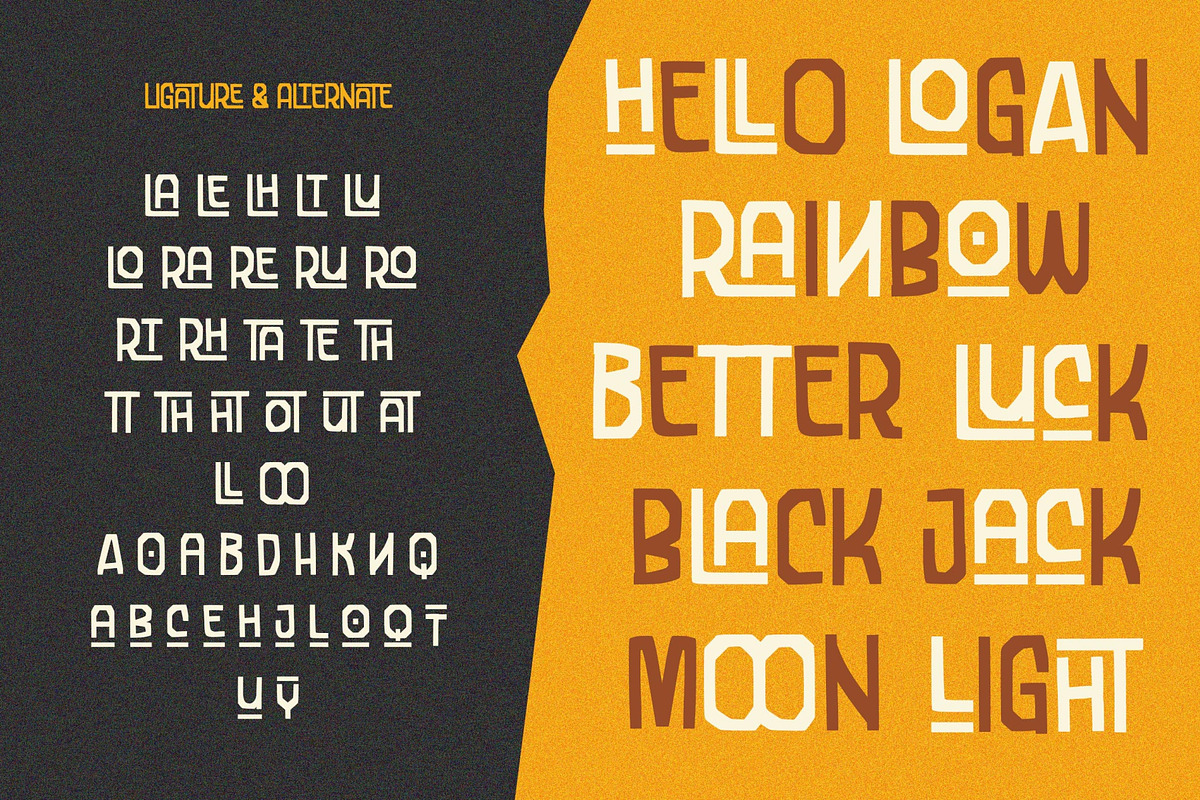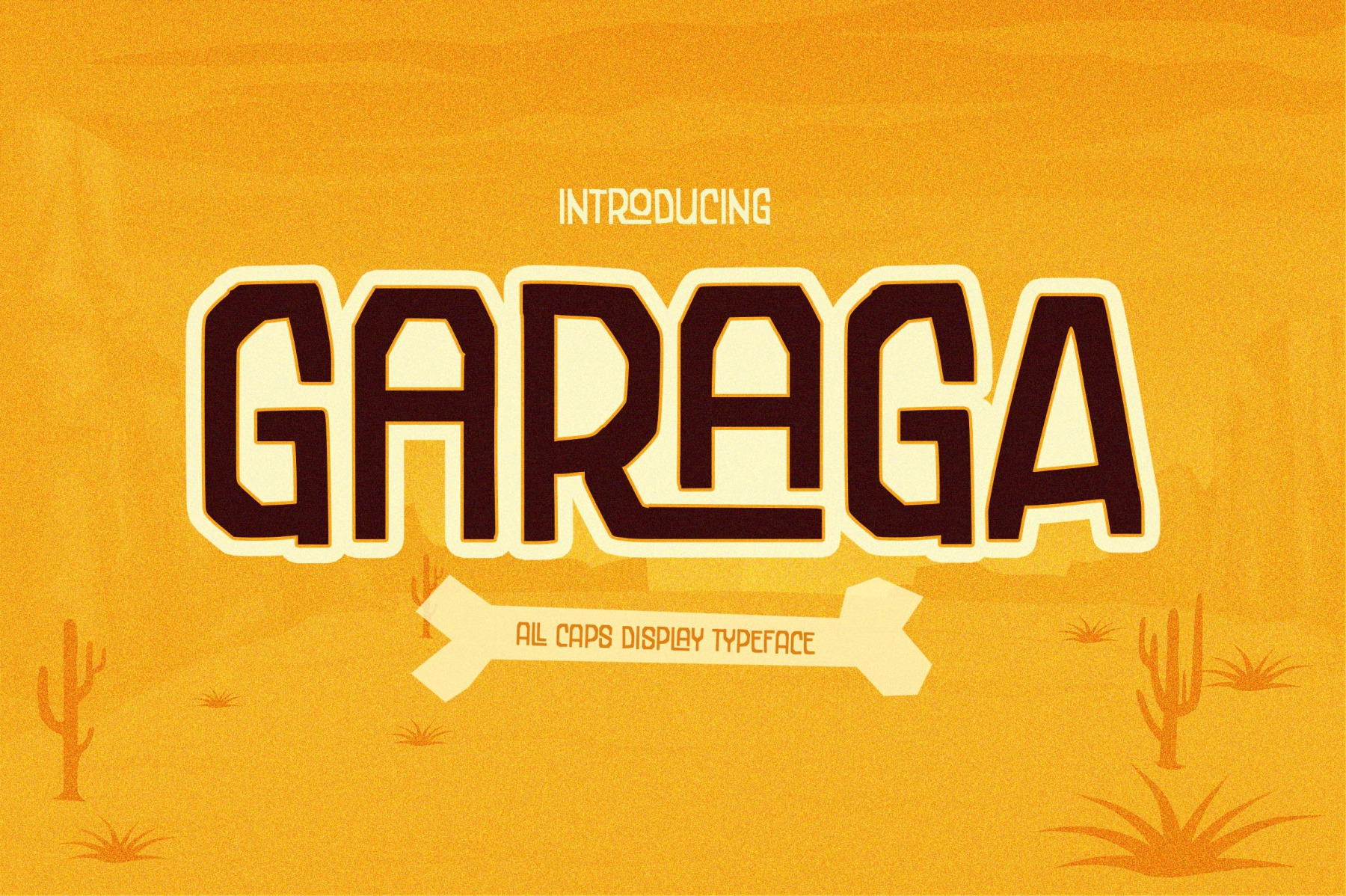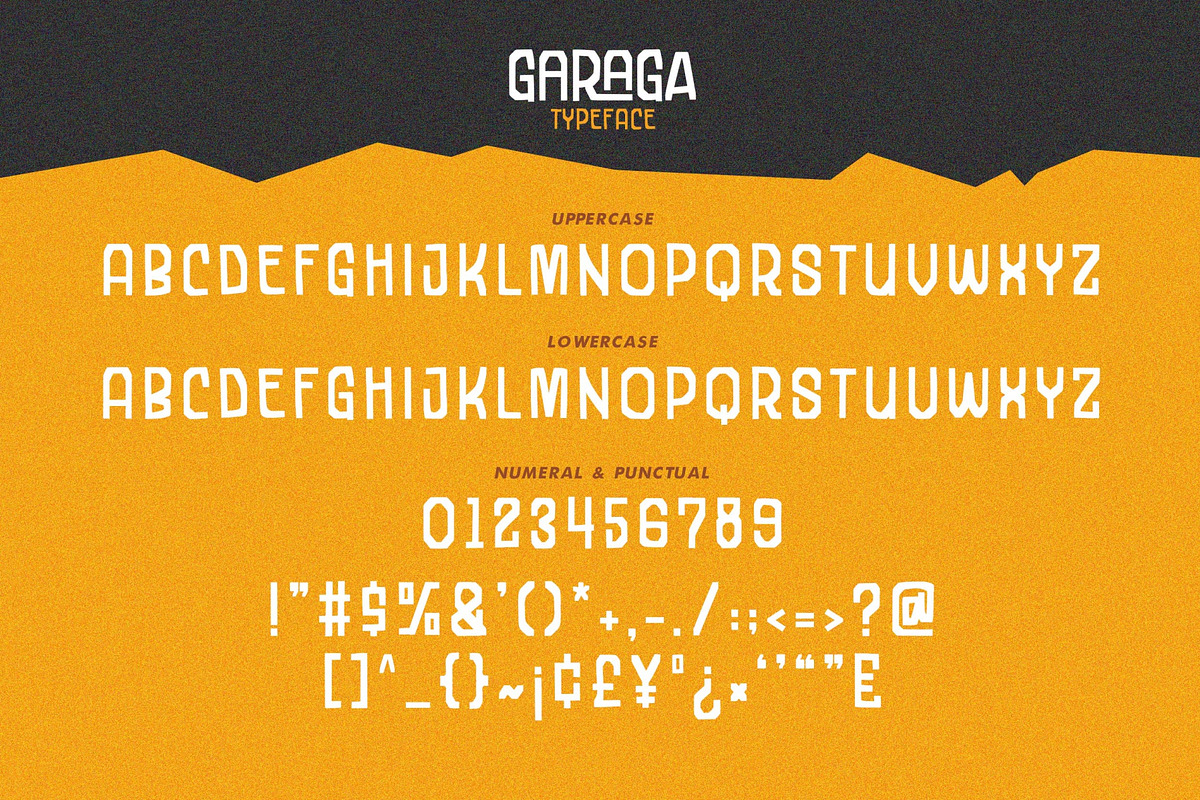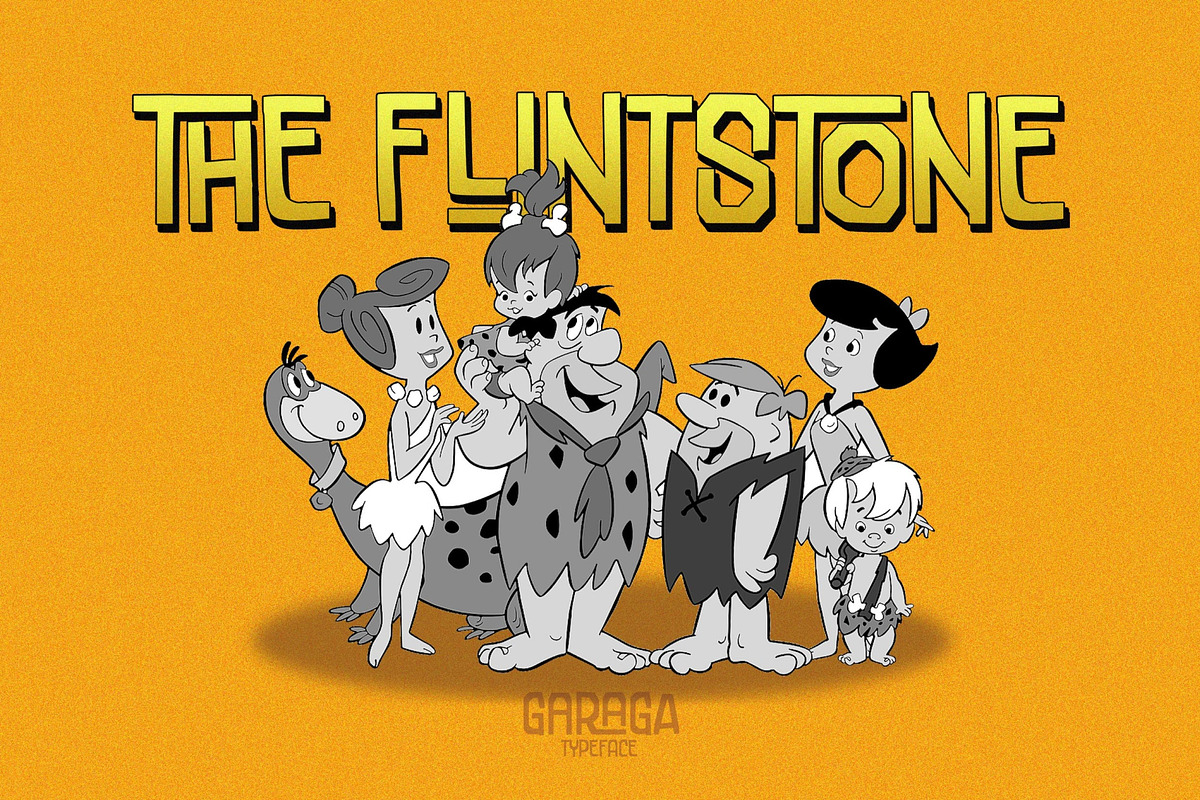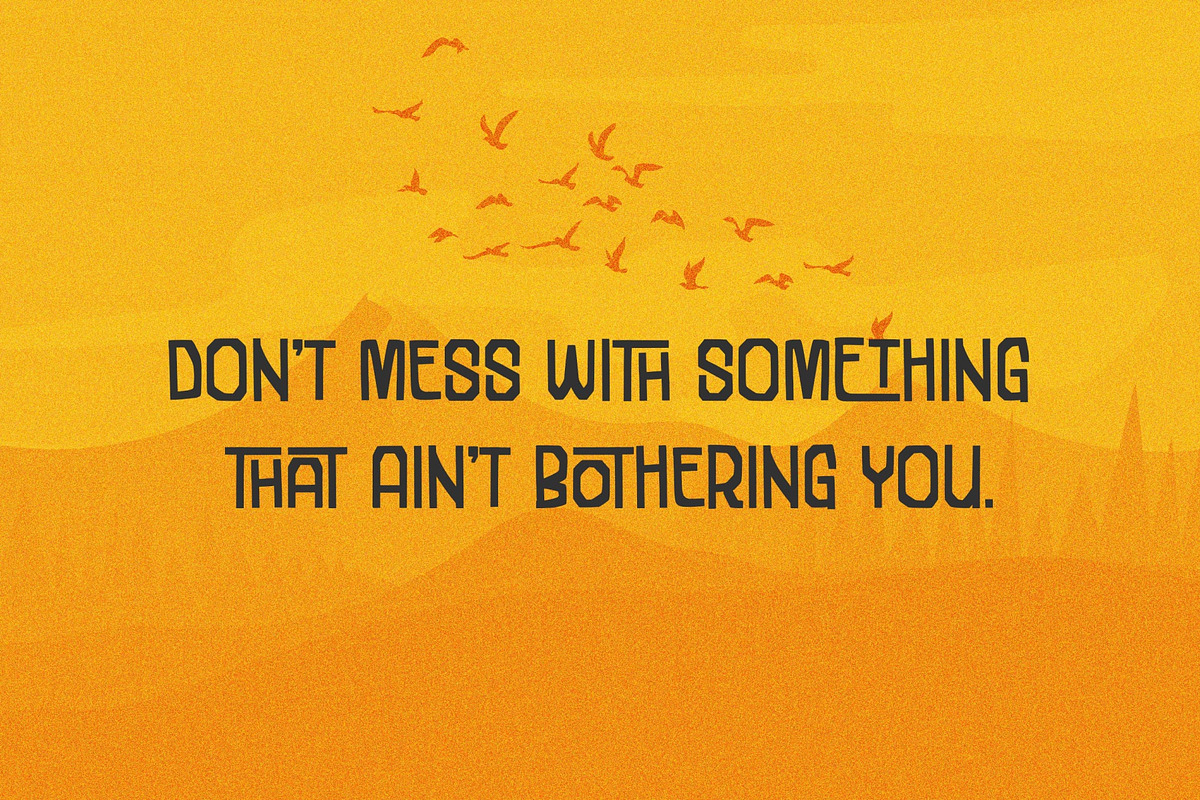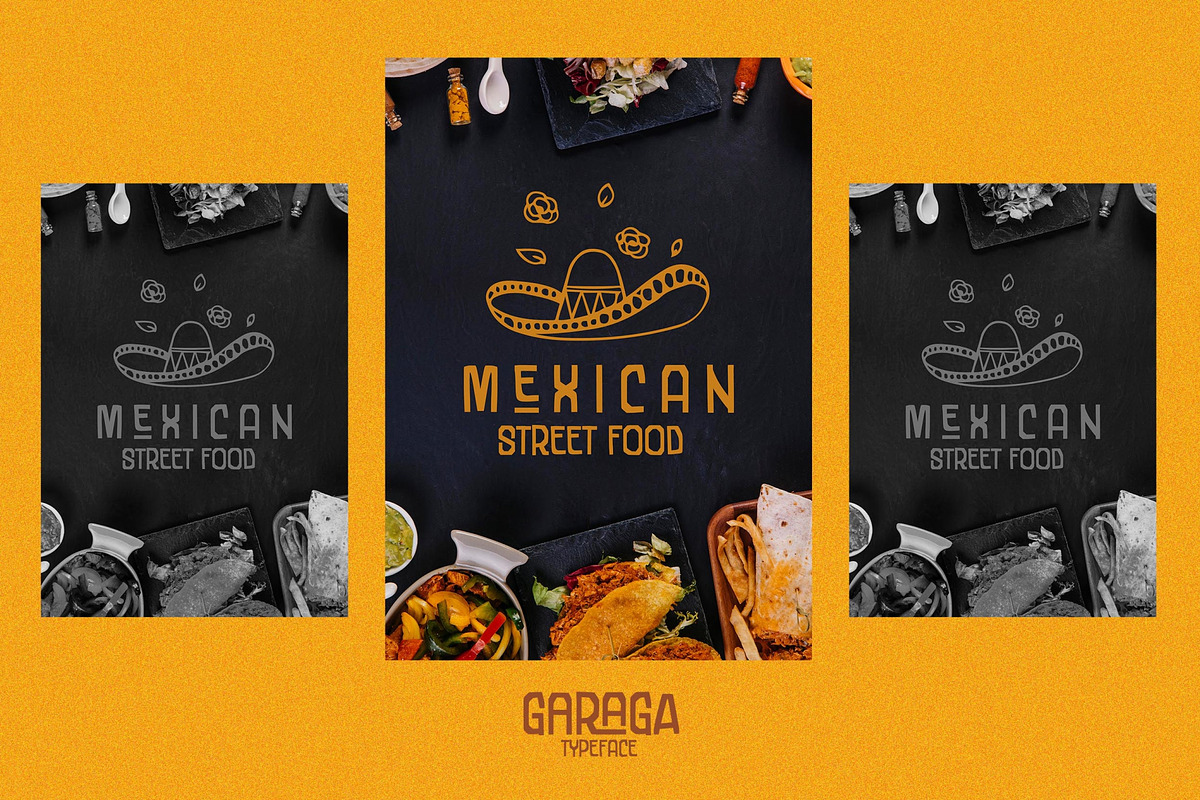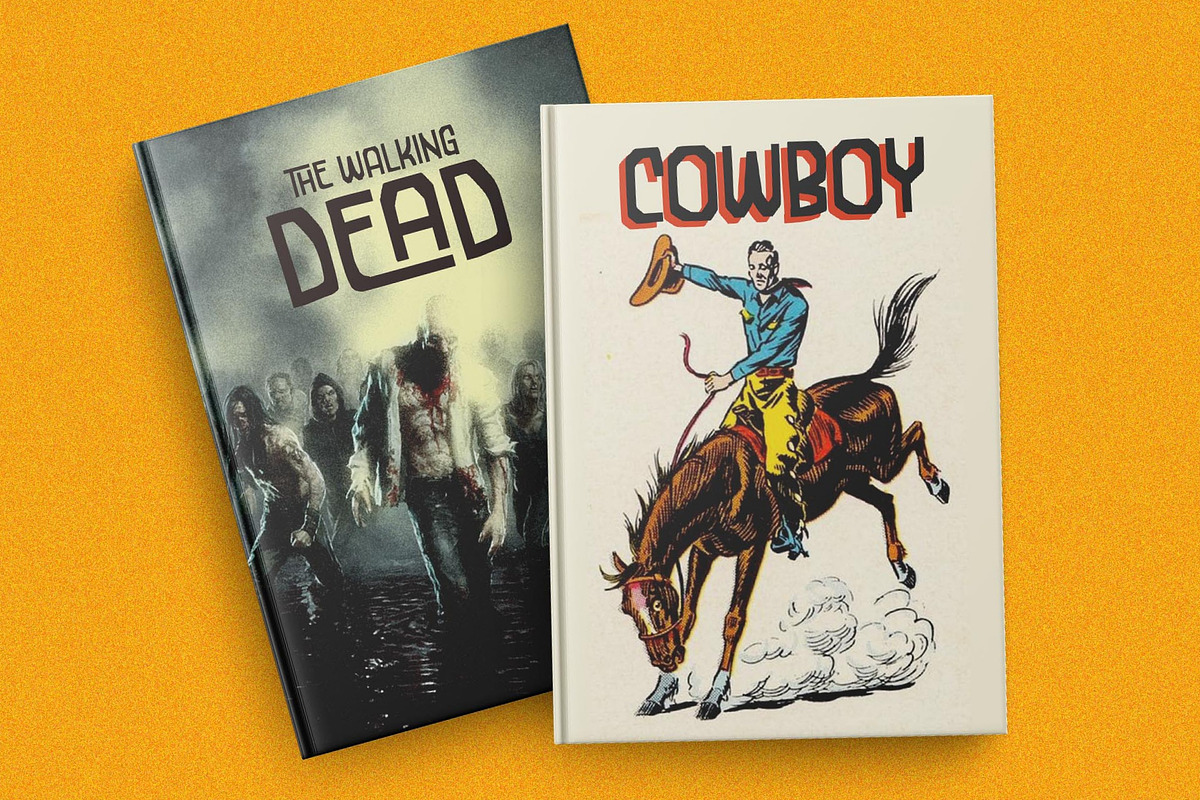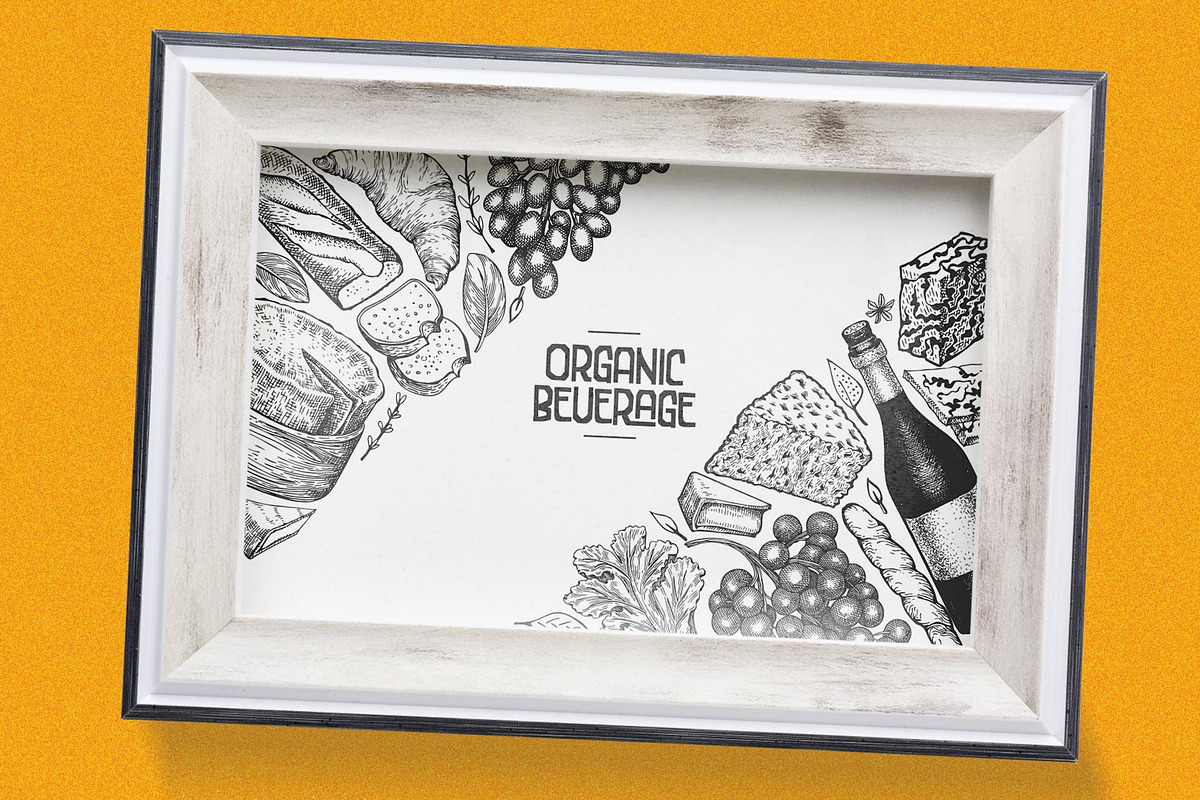
Garaga | Display Typeface
Introducing Garaga | Display Typeface
Garaga combines attractive curves with a fresh urban edge and build with all caps letters; delivering a stylish script which is guaranteed to add an eye-catching appeal to your logo designs, brand imagery, quotes, product packaging, merchandise & social media posts
- Uppercase & Lowercase letters
- 80+ Ligatures
- Opentype Features